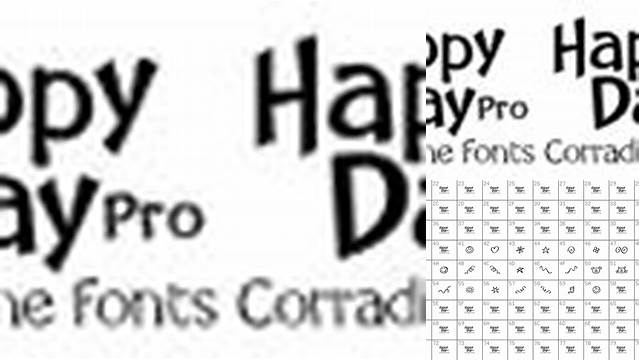
Happy Day Dingbats Font: Free Download!
Hey guys! Looking to add some fun and flair to your designs? You've come to the right place! Today, we're diving into the world of happy day dingbats fonts and how you can snag them for free. These fonts are perfect for adding those extra little touches to invitations, social media graphics, and all sorts of creative projects. Let's get started!
What are Dingbats Fonts, Anyway?
Before we jump into the specifics of a happy day dingbats font, let's clarify what dingbats fonts actually are. Unlike regular fonts that display letters and numbers, dingbats fonts showcase symbols, icons, and decorative elements. Think of them as a collection of tiny illustrations all packed into a font file. This makes them super handy for adding visual interest without having to hunt down individual images. A happy day dingbats font usually features cheerful and positive symbols, perfect for brightening up any project. Understanding this foundation is crucial before exploring where to find these fantastic fonts and how to effectively use them in your creative endeavors.
Why Use Happy Day Dingbats Fonts?
So, why should you bother with a happy day dingbats font? Well, for starters, they're incredibly versatile. You can use them to create borders, add cute icons to your website, or even design unique logos. Plus, they're a breeze to use – just select the font in your design software and type a letter or number to insert a symbol. A happy day dingbats font specifically brings a sense of joy and positivity to your work. Imagine adding little suns, hearts, or smiley faces to your designs with just a few keystrokes! Ultimately, the reason to choose a happy day dingbats font is to inject personality and charm into your projects effortlessly, making them more engaging and visually appealing.
Using Dingbats Fonts in Design Software
Now that your happy day dingbats font is installed, let's talk about using it in your favorite design software. Whether you're using Adobe Photoshop, Illustrator, Canva, or something else, the process is generally the same. Select the text tool, choose your dingbats font from the font menu, and then start typing. Each letter or number will correspond to a different symbol in the font. Experiment with different characters to see what each one looks like. With a happy day dingbats font, you can easily add charming icons and decorative elements to your designs. Remember to adjust the font size, color, and spacing to get the perfect look for your project. Mastering the use of dingbats in design software opens up a world of creative possibilities, allowing you to craft unique and visually appealing designs with ease.
Tips for Choosing the Right Dingbats Font
Choosing the right happy day dingbats font can make all the difference in your project. Consider the overall style and tone of your design. A whimsical font might be perfect for a children's book, but it might not be suitable for a professional business presentation. Think about the specific symbols you need and make sure the font includes them. Also, pay attention to the quality of the font. A poorly designed font can look pixelated or distorted, especially when used at larger sizes. A happy day dingbats font should complement your design, not distract from it. By carefully considering these factors, you can select the perfect dingbats font that enhances your project and brings your creative vision to life.
Creative Project Ideas with Dingbats Fonts
Need some inspiration? Here are a few creative project ideas using a happy day dingbats font: design custom greeting cards, create unique social media graphics, add decorative elements to your website, make personalized invitations, or even create fun stickers. The possibilities are endless! A happy day dingbats font can add a touch of whimsy and personality to any project. Don't be afraid to experiment and try new things. Use the symbols to create patterns, borders, or even entire illustrations. With a little creativity, you can transform ordinary designs into something truly special. Embrace the playful nature of dingbats and let your imagination run wild!
Dingbats Fonts for Social Media
Social media is all about visual content, and a happy day dingbats font can help you stand out from the crowd. Use dingbats to add eye-catching icons and decorative elements to your posts. Create custom banners, highlight important information, or simply add a touch of personality to your profile. A happy day dingbats font can make your social media content more engaging and shareable. Experiment with different symbols to see what resonates with your audience. Use them sparingly and strategically to avoid overwhelming your followers. By incorporating dingbats fonts into your social media strategy, you can elevate your brand's visual presence and capture the attention of your target audience.
Dingbats Fonts for Invitations and Cards
Planning a party or special event? A happy day dingbats font can add a personal touch to your invitations and cards. Use dingbats to create custom borders, add decorative accents, or even create unique RSVP cards. A happy day dingbats font can make your invitations more memorable and visually appealing. Choose symbols that reflect the theme of your event. For example, you could use heart symbols for a wedding invitation or star symbols for a birthday party invitation. By incorporating dingbats fonts into your invitation designs, you can create a lasting impression and set the tone for a joyful celebration.
Dingbats Fonts for Website Design
A happy day dingbats font can be a great way to add visual interest to your website. Use dingbats to create custom icons, add decorative elements to your headers and footers, or even create unique bullet points for your lists. A happy day dingbats font can make your website more engaging and user-friendly. Choose symbols that align with your brand's aesthetic and message. Use them sparingly to avoid cluttering your website. By incorporating dingbats fonts into your website design, you can create a visually appealing and memorable online experience for your visitors.
Dingbats Fonts for Scrapbooking
If you're a scrapbooker, a happy day dingbats font is a must-have tool. Use dingbats to add decorative accents to your scrapbook pages, create custom labels, or even create unique journaling prompts. A happy day dingbats font can help you personalize your scrapbook and tell your story in a creative way. Choose symbols that reflect the theme of your scrapbook. For example, you could use travel-related symbols for a vacation scrapbook or family-related symbols for a family scrapbook. By incorporating dingbats fonts into your scrapbooking projects, you can create cherished memories that will last a lifetime.
Dingbats Fonts for DIY Projects
Looking for a fun and easy way to personalize your DIY projects? A happy day dingbats font is the answer! Use dingbats to add decorative elements to your crafts, create custom stencils, or even create unique fabric patterns. A happy day dingbats font can help you transform ordinary items into personalized masterpieces. Choose symbols that reflect your personal style and interests. By incorporating dingbats fonts into your DIY projects, you can unleash your creativity and create one-of-a-kind items that reflect your personality.
Dingbats Fonts for Business Branding
A happy day dingbats font can even be used for business branding! While it might not be suitable for every type of business, it can be a great way to add a touch of personality and whimsy to your brand. Use dingbats to create custom logos, add decorative elements to your marketing materials, or even create unique business cards. A happy day dingbats font can help you make your brand more memorable and visually appealing. Choose symbols that align with your brand's values and message. Use them sparingly to avoid appearing unprofessional. By incorporating dingbats fonts into your business branding, you can create a unique and recognizable brand identity.
Combining Dingbats Fonts with Other Fonts
One of the best ways to use a happy day dingbats font is to combine it with other fonts. This can create a more dynamic and visually interesting design. Pair your dingbats font with a clean and simple sans-serif font for a modern look, or combine it with a classic serif font for a more traditional feel. Experiment with different font combinations to see what works best for your project. A happy day dingbats font can add a touch of whimsy and personality to any design, but it's important to use it in moderation. Avoid using too many different fonts in one design, as this can make it look cluttered and unprofessional. By carefully combining dingbats fonts with other fonts, you can create a visually appealing and effective design.
Creating Patterns with Dingbats Fonts
A fun and creative way to use a happy day dingbats font is to create patterns. Use the symbols in the font to create repeating patterns for backgrounds, borders, or even entire illustrations. A happy day dingbats font can add a unique and personalized touch to your patterns. Experiment with different symbol combinations and arrangements to see what you can create. You can use these patterns for a variety of projects, such as website backgrounds, social media graphics, or even fabric designs. By creating patterns with dingbats fonts, you can unleash your creativity and create truly unique and eye-catching designs.
Dingbats Fonts for Seasonal Designs
A happy day dingbats font can be perfect for creating seasonal designs. Use holiday-themed symbols for Christmas cards, Halloween invitations, or Thanksgiving flyers. A happy day dingbats font can help you capture the spirit of the season in your designs. Choose symbols that reflect the specific holiday or season. For example, you could use snowflake symbols for a winter design or pumpkin symbols for a fall design. By incorporating dingbats fonts into your seasonal designs, you can create festive and memorable graphics that will delight your audience.
Dingbats Fonts for Educational Materials
Even educational materials can benefit from a happy day dingbats font. Use dingbats to add visual interest to worksheets, presentations, or even classroom decorations. A happy day dingbats font can make learning more engaging and fun for students. Choose symbols that relate to the subject matter you're teaching. For example, you could use math symbols for a math worksheet or science symbols for a science presentation. By incorporating dingbats fonts into your educational materials, you can create visually appealing and effective learning resources that will capture your students' attention.
Tips for Legibility with Dingbats Fonts
While happy day dingbats fonts are fun and creative, it's important to ensure that your designs are still legible. Avoid using dingbats fonts for large blocks of text, as this can make it difficult for people to read. Instead, use them sparingly for headings, subheadings, or decorative elements. Choose symbols that are clear and easy to understand. A happy day dingbats font should enhance your design, not distract from it. By following these tips, you can use dingbats fonts effectively without sacrificing legibility.
The History of Dingbats Fonts
The history of happy day dingbats fonts, and dingbats in general, is quite interesting! Dingbats have been around for centuries, originally used in printing to fill space or add decorative elements. Over time, they evolved into the fonts we know and love today. Understanding the history of dingbats can give you a greater appreciation for their versatility and creativity. From their humble beginnings to their modern-day applications, dingbats have played a significant role in the world of design and typography. Exploring the history of happy day dingbats fonts reveals a rich tapestry of innovation and artistic expression.
Dingbats vs. Icons: What's the Difference?
People often confuse happy day dingbats fonts with icons, but there's a key difference. Icons are typically individual images, while dingbats are part of a font. This means you can easily change the size and color of dingbats without losing quality. A happy day dingbats font offers flexibility and convenience that individual icons often lack. Understanding the distinction between dingbats and icons can help you choose the right tool for your design needs. Both have their own unique advantages, but dingbats fonts provide a seamless and scalable solution for incorporating symbols into your projects.
Creating Your Own Dingbats Font
Feeling ambitious? You can even create your own happy day dingbats font! There are several software programs available that allow you to design your own symbols and turn them into a font. This can be a fun and rewarding project for designers and creatives. A happy day dingbats font that you create yourself will be truly unique and personalized. While it requires some technical skills and effort, creating your own dingbats font can be a fantastic way to express your creativity and add a personal touch to your designs.
The Future of Dingbats Fonts
What does the future hold for happy day dingbats fonts? As design trends continue to evolve, dingbats are likely to remain a popular and versatile tool. With the rise of digital design and social media, dingbats offer a quick and easy way to add visual interest to online content. A happy day dingbats font can help designers create engaging and memorable experiences for their audience. As technology advances, we can expect to see even more innovative and creative uses for dingbats fonts in the years to come.
Dingbats Fonts and Accessibility
When using happy day dingbats fonts, it's important to consider accessibility. Make sure that the symbols you use are clear and easy to understand for all users. Avoid using dingbats fonts to convey essential information, as this can make it difficult for people with disabilities to access the content. A happy day dingbats font should complement your design, not hinder accessibility. By following accessibility guidelines, you can ensure that your designs are inclusive and usable for everyone.
Legal Considerations for Using Dingbats Fonts
Before using a happy day dingbats font in your projects, it's important to understand the legal considerations. Make sure that you have the necessary licenses to use the font for your intended purpose. Some fonts are free for personal use only, while others require a commercial license. A happy day dingbats font can add value to your designs, but it's important to respect the intellectual property rights of the font creator. By understanding and following the legal guidelines, you can avoid any potential copyright issues.
Resources for Learning More About Dingbats Fonts
Want to learn more about happy day dingbats fonts? There are tons of great resources available online, including tutorials, articles, and design communities. Explore different websites and forums to expand your knowledge and skills. A happy day dingbats font can be a powerful tool for designers and creatives, and there's always something new to learn. By investing in your education, you can unlock the full potential of dingbats fonts and create truly amazing designs.
Happy Day Dingbats Fonts: A Summary
So, there you have it! A comprehensive guide to happy day dingbats fonts. From understanding what they are and where to find them, to using them effectively in your designs, you now have the knowledge to create amazing visuals. A happy day dingbats font is a versatile and fun tool that can add personality and charm to any project. Embrace your creativity and start experimenting with dingbats fonts today! Remember to always check the license and download from trusted sources. Happy designing!
Troubleshooting Common Dingbats Font Issues
Even with the best preparation, you might encounter issues using a happy day dingbats font. Common problems include the font not appearing in your software, symbols displaying incorrectly, or licensing complications. A happy day dingbats font should integrate smoothly, but troubleshooting steps can help resolve any glitches. Restarting your software, reinstalling the font, and verifying the license are good first steps. Consulting online forums or support documentation for your design software can also provide specific solutions. Addressing these issues promptly ensures your creative workflow remains uninterrupted and your projects shine.
Advanced Techniques for Dingbats Font Customization
Once you're comfortable with the basics, explore advanced techniques for happy day dingbats font customization. This might involve modifying existing symbols, creating custom color palettes, or combining multiple dingbats fonts for unique effects. A happy day dingbats font becomes even more powerful when tailored to your specific needs. Using vector editing software, you can alter shapes, add details, and create entirely new symbols. Experimenting with layering, transparency, and gradients can also add depth and visual interest. Mastering these advanced techniques allows you to push the boundaries of creativity and craft truly original designs.
The Impact of Dingbats Fonts on Visual Communication
Happy day dingbats fonts play a significant role in visual communication. They provide a shorthand for expressing emotions, ideas, and concepts in a visually appealing way. A well-chosen happy day dingbats font can enhance clarity, add personality, and create a memorable impression. In an increasingly visual world, dingbats fonts offer a powerful tool for capturing attention and conveying messages quickly and effectively. From social media to marketing materials, dingbats fonts contribute to the overall impact and engagement of visual content. Understanding their impact allows designers to leverage their potential for maximum communication effectiveness.